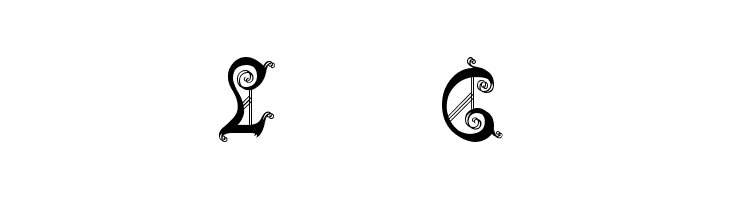
( 9031 - www.9031.com/p-font/ )
A modern, geometric monospaced font with rounded edges.
( Adobe - www.adobe.com )
A collection of bold, high-contrast icons and symbols in a modern style.
( Aldus )
An ornate and decorative typeface with intricate swirls and flourishes.
( Chung-deh Tien - www.redbubble.com/people/kaiju/portfolio )
A classic serif font with elegant, elongated letterforms and sharp serifs.
( Cioroianu Stefan Cristian )
An ornate Blackletter font with intricate, angular designs and historical elegance.
( CloutierFontes - www.cloutierfontes.ca )
A distressed, vintage typewriter-style font with a bold, textured appearance.
( Commissioned - alterkproject.googlepages.com )
An elegant italic serif font with smooth curves and sharp serifs.
( Dan Evans )
A modern, geometric monospaced font with clean lines and uniform character width.
( Digital Magic - www.graphicdesignplus.com/helen/digitalmagic/ )
A decorative dingbat font with genealogy and history-themed illustrations.
( GNU FreeFont - savannah.gnu.org/projects/freefont/ )
A monospaced oblique font with a modern and dynamic style.